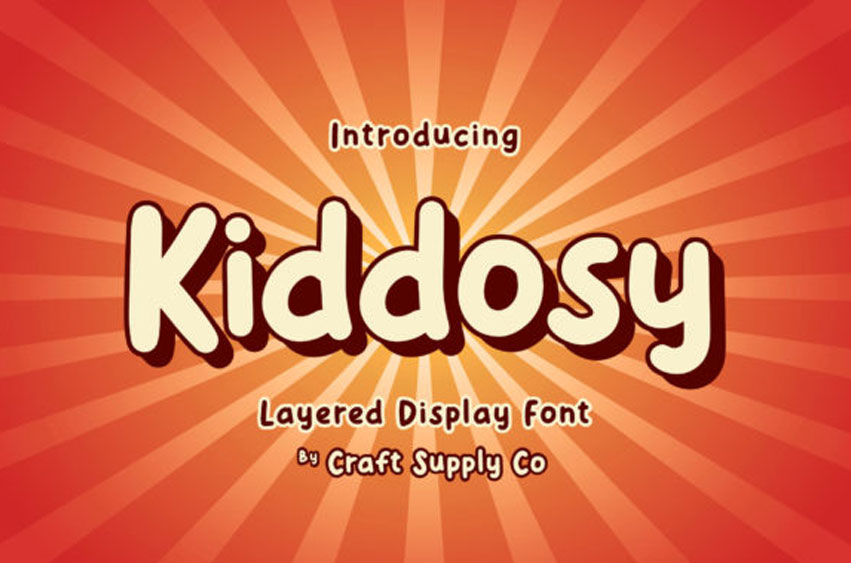
Kiddosy Font is a fun and playful display font.
Simple and friendly, this font will be ideal for any party invitation or thank you card you wish to create!